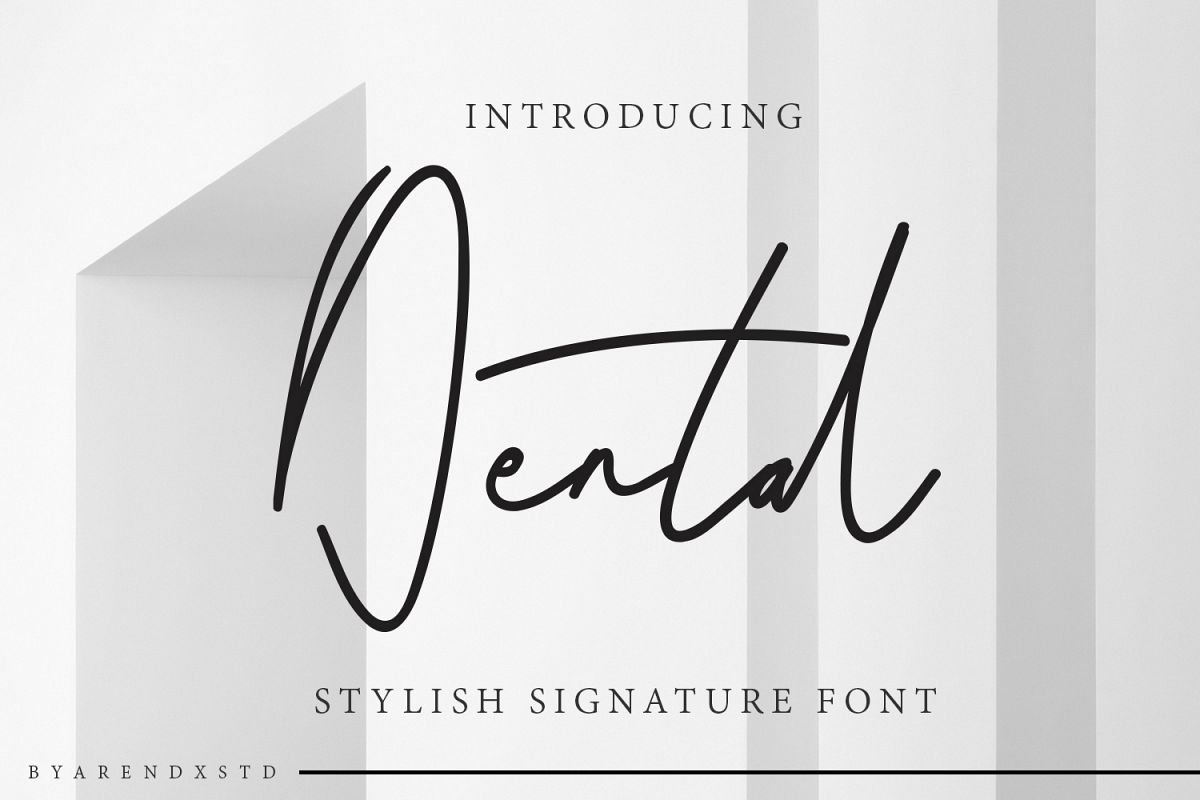
Dental Signatures Font
Dental
Introducing our newest Dental Stylish Signature Font .
Dental Signature font is made as elegant as possible for the use of your design project
Dental offers a variety of design projects, including logos & amps, branding, wedding designs, social media posts, advertisements, product designs, magazines and more.